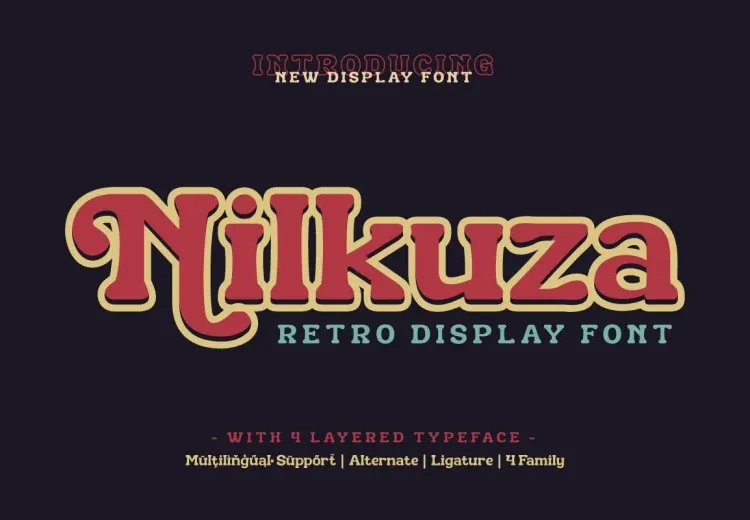
Nilkuza Font
Nilkuza Font is an adorable retro display style font that brings a sense of charm and nostalgia to your designs. With its vintage, rustic aesthetic, Nilkuza is perfect for adding a touch of nostalgia and style to a wide variety of projects. Whether you’re designing for print or digital mediums, Nilkuza can help create that unique, timeless feel.
The font comes in four family variations—Regular, Distortion, Outline, and Shadow—offering endless creative freedom. With the option to mix and match these styles, you can craft a design that feels distinctly yours. Additionally, Nilkuza includes alternate characters and ligatures, allowing you to create personalized combinations, making each piece unique and full of character.
Nilkuza’s versatility is enhanced by its multi-language support, enabling you to connect with a broader audience. Whether you’re creating visuals for local or international markets, Nilkuza ensures your designs can be universally understood while maintaining their distinctive look.